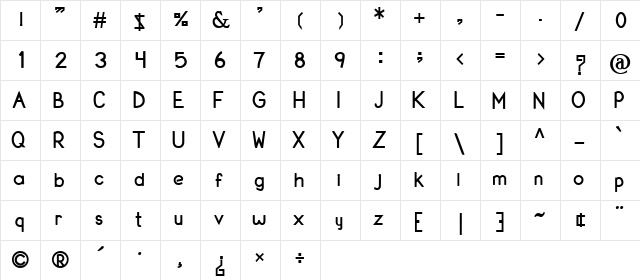
Ekushey Kolom Bold
| Foundry | Al Mamun Sumon |
| Designer | Al Mamun Sumon |
Design Context for Ekushey Kolom Typeface
Ekushey Kolom offers clean, dependable letterforms without strong stylistic allegiance, making it a practical choice for designers who need flexibility. Its bold stroke weight gives it real presence on the page.